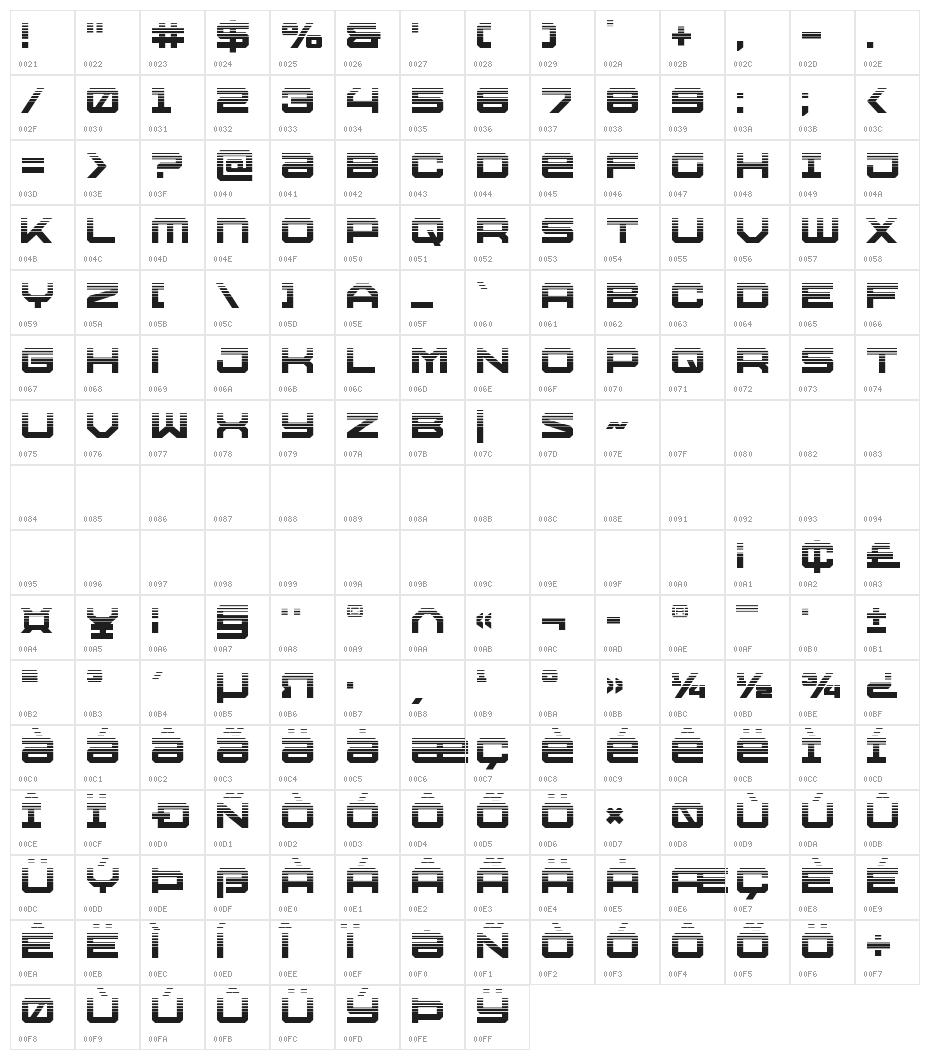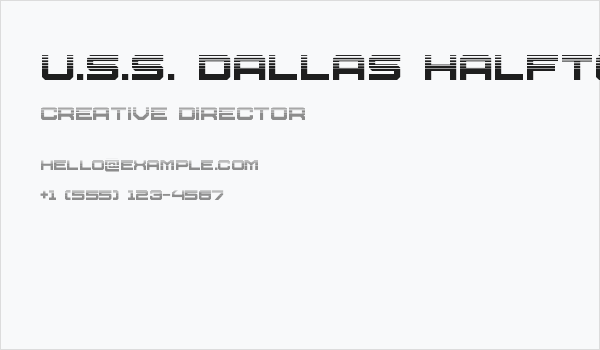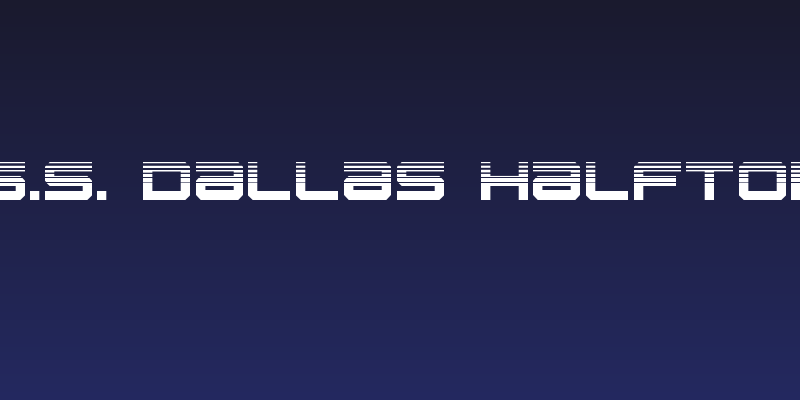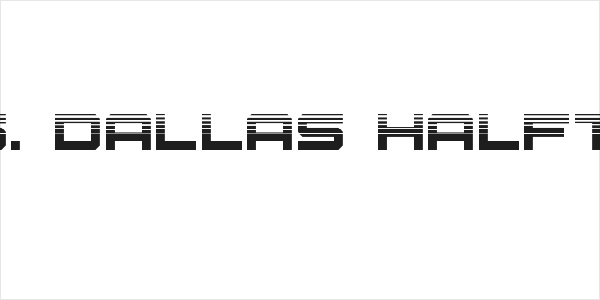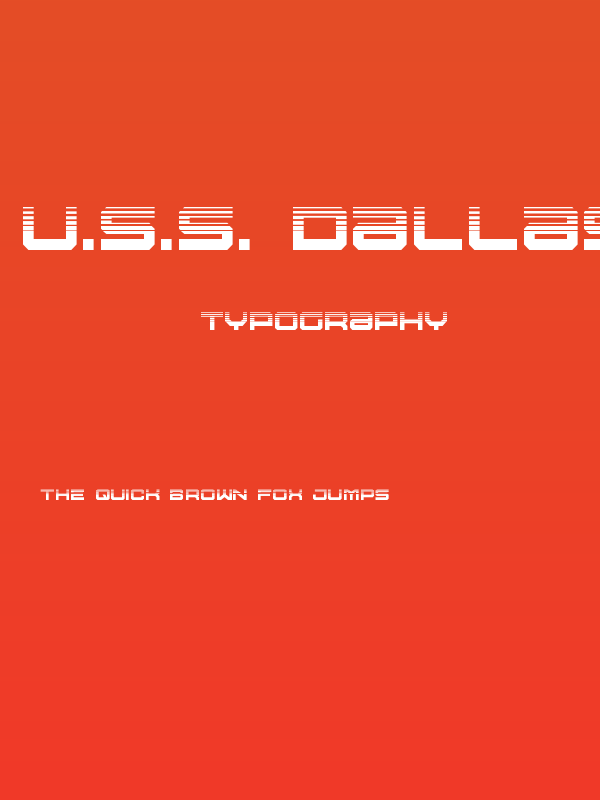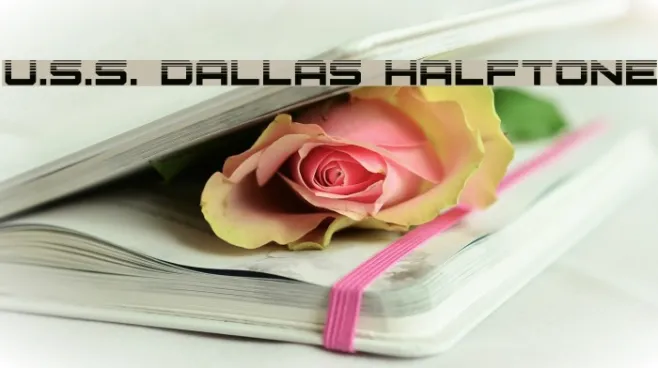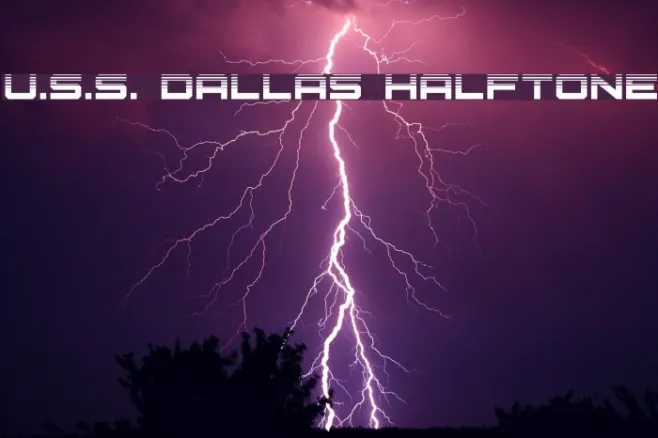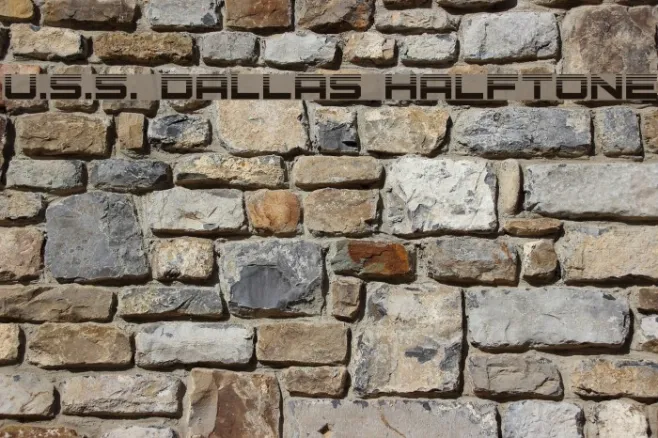
U.S.S. Dallas Halftone Font
U.S.S. Dallas Halftone Description
This font features a bold, futuristic design with a distinctive halftone effect that creates a sense of depth and dimension. The characters are constructed with horizontal lines that give them a digital, high-tech appearance. The uppercase and lowercase letters maintain a consistent style, with sharp angles and a geometric structure. The numbers and special characters are equally stylized, making them suitable for modern and tech-oriented designs. The font's unique aesthetic is eye-catching and ideal for projects that require a contemporary and innovative look.
| Proposed Projects | Ideal for technology branding, sci-fi posters, video game titles, and digital media. |